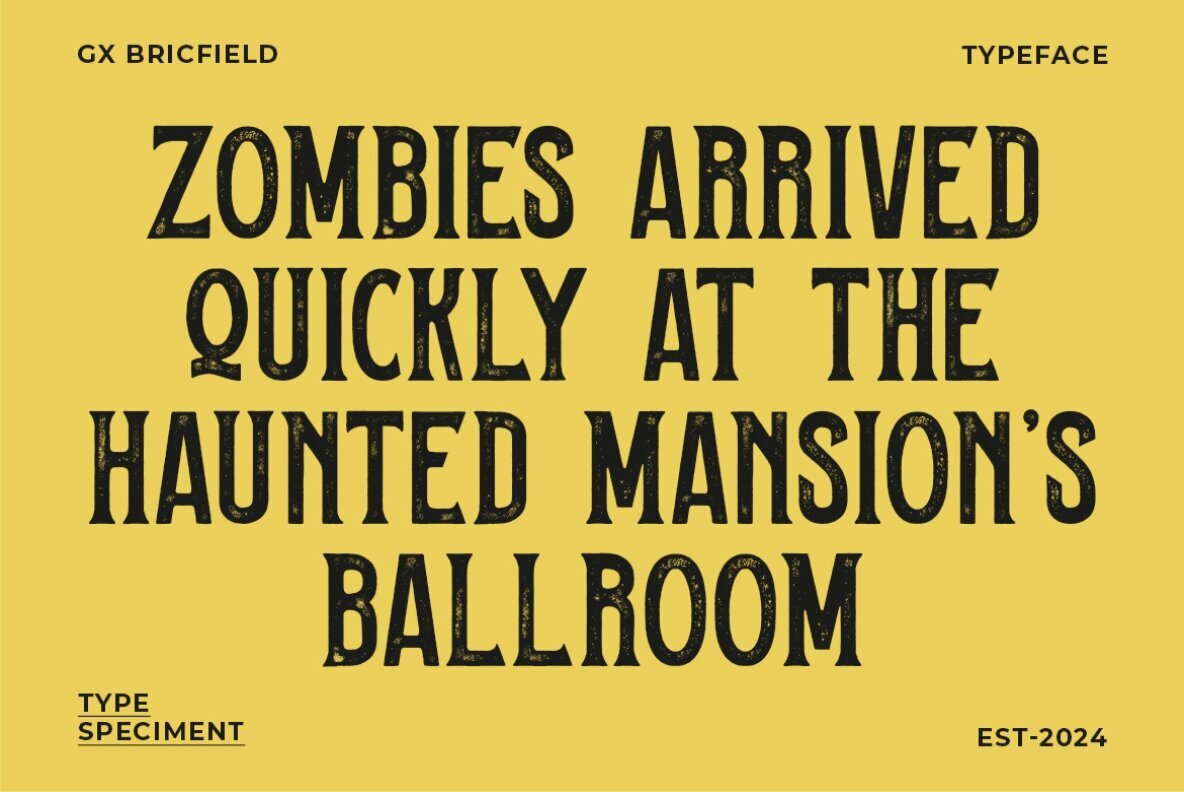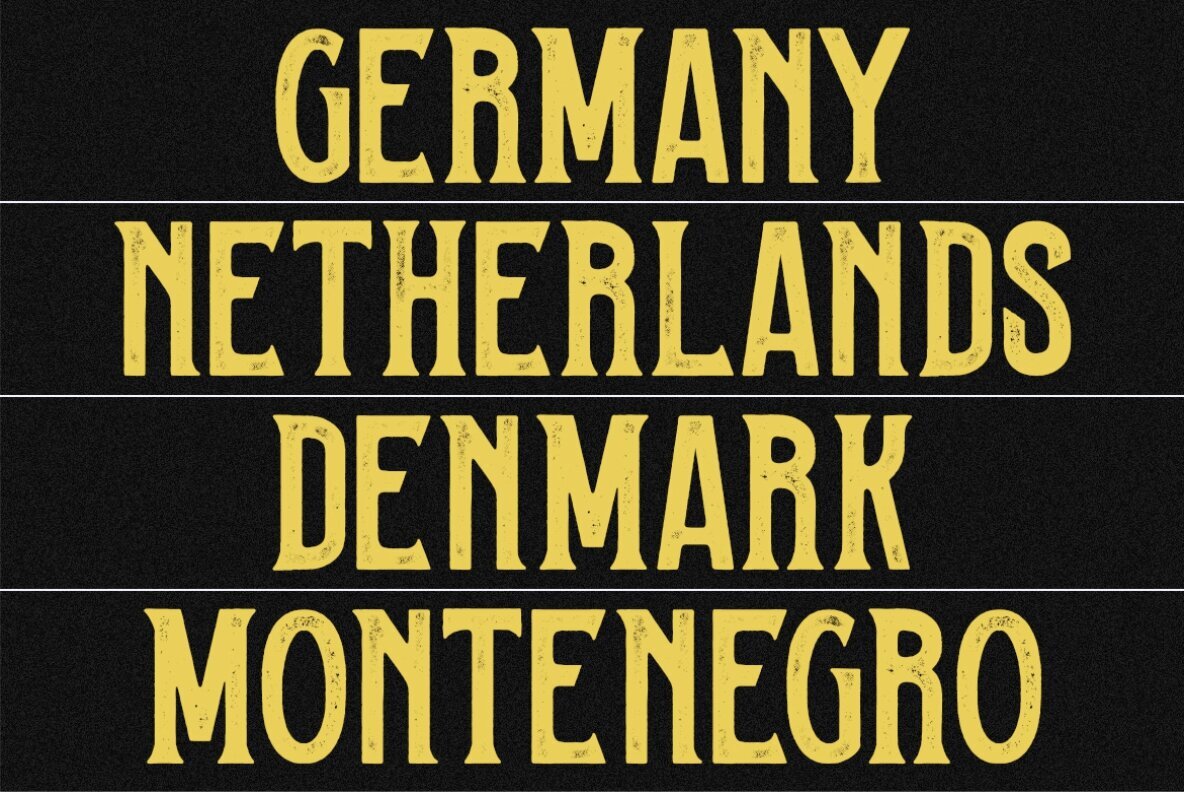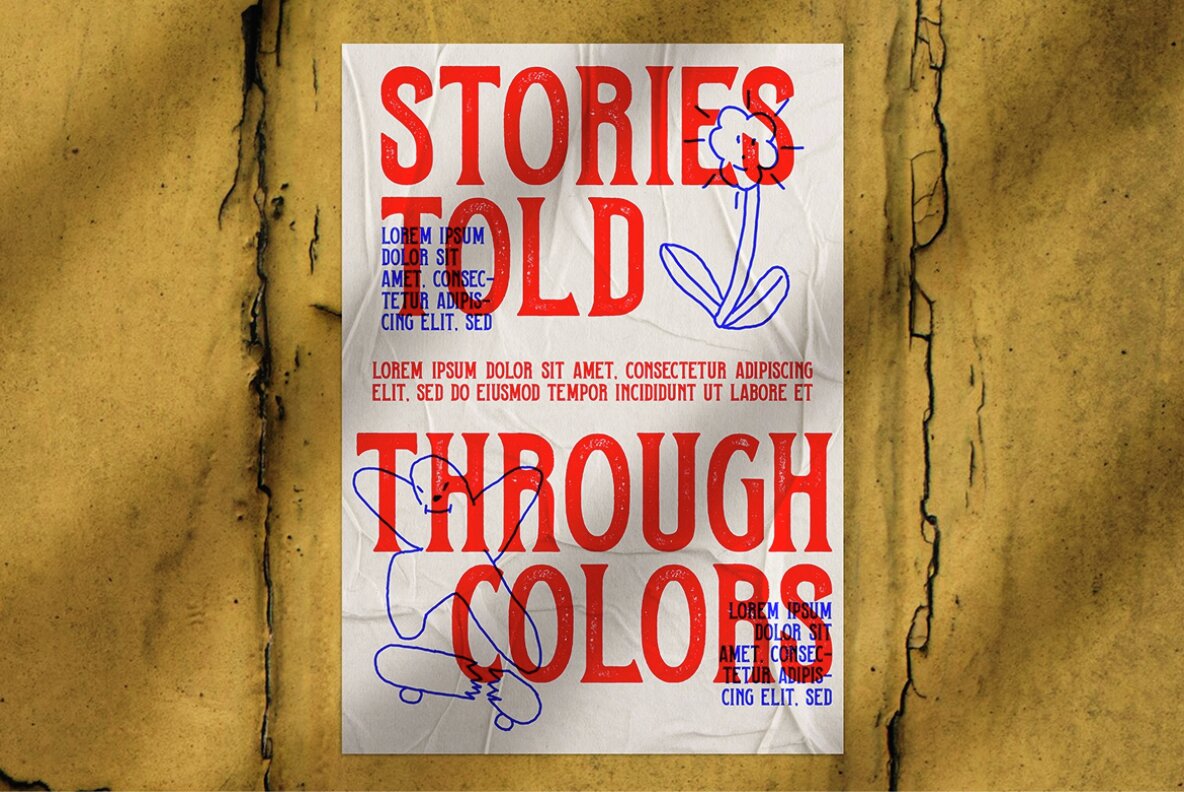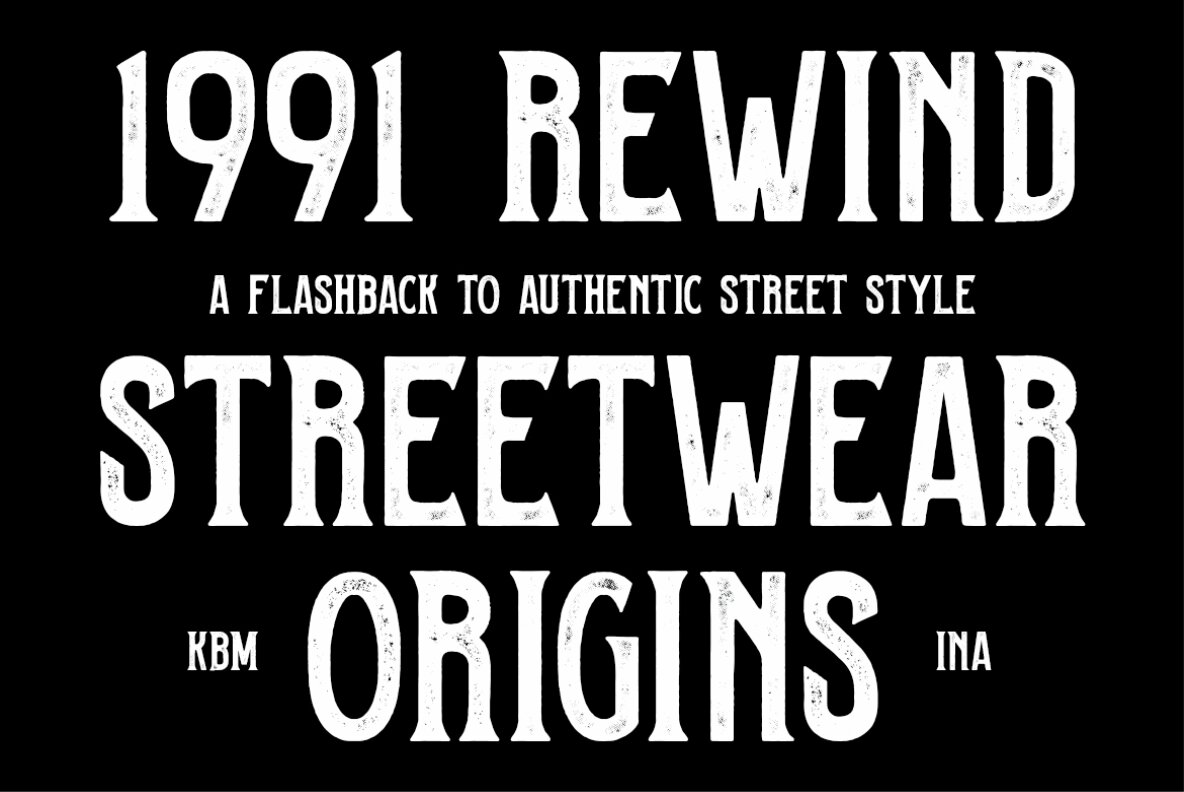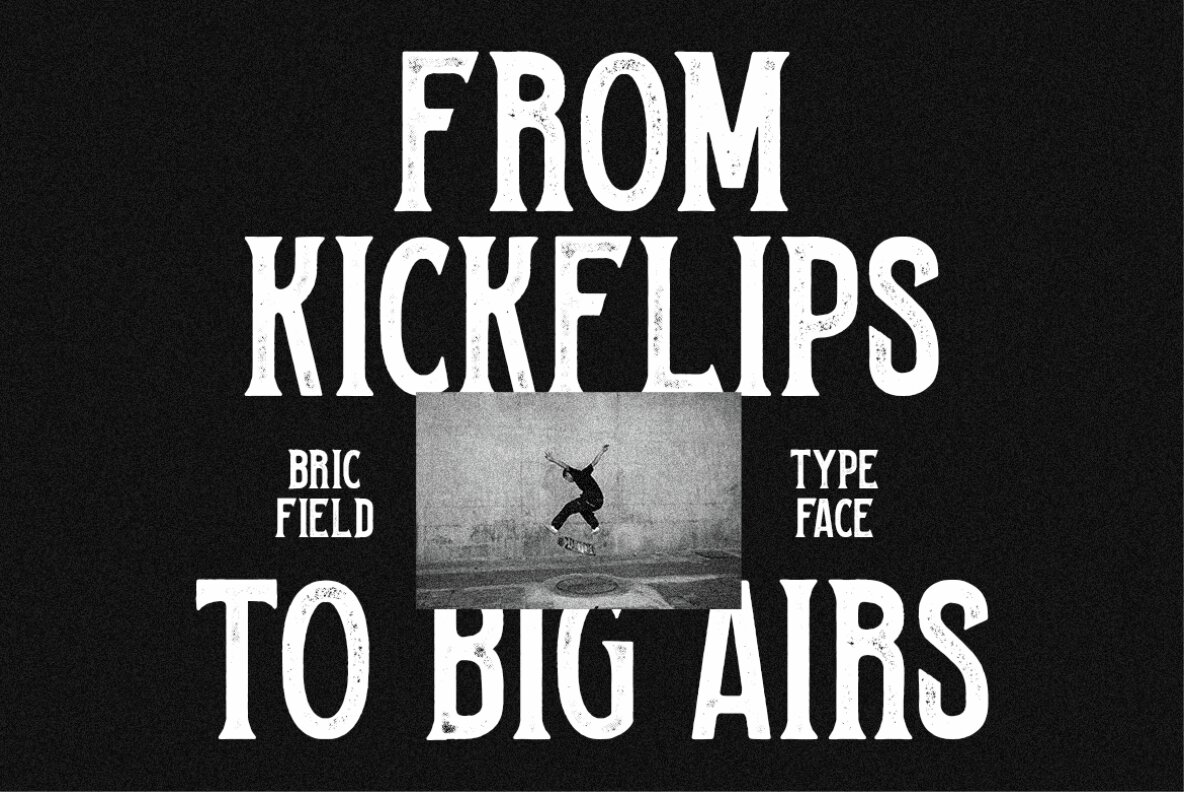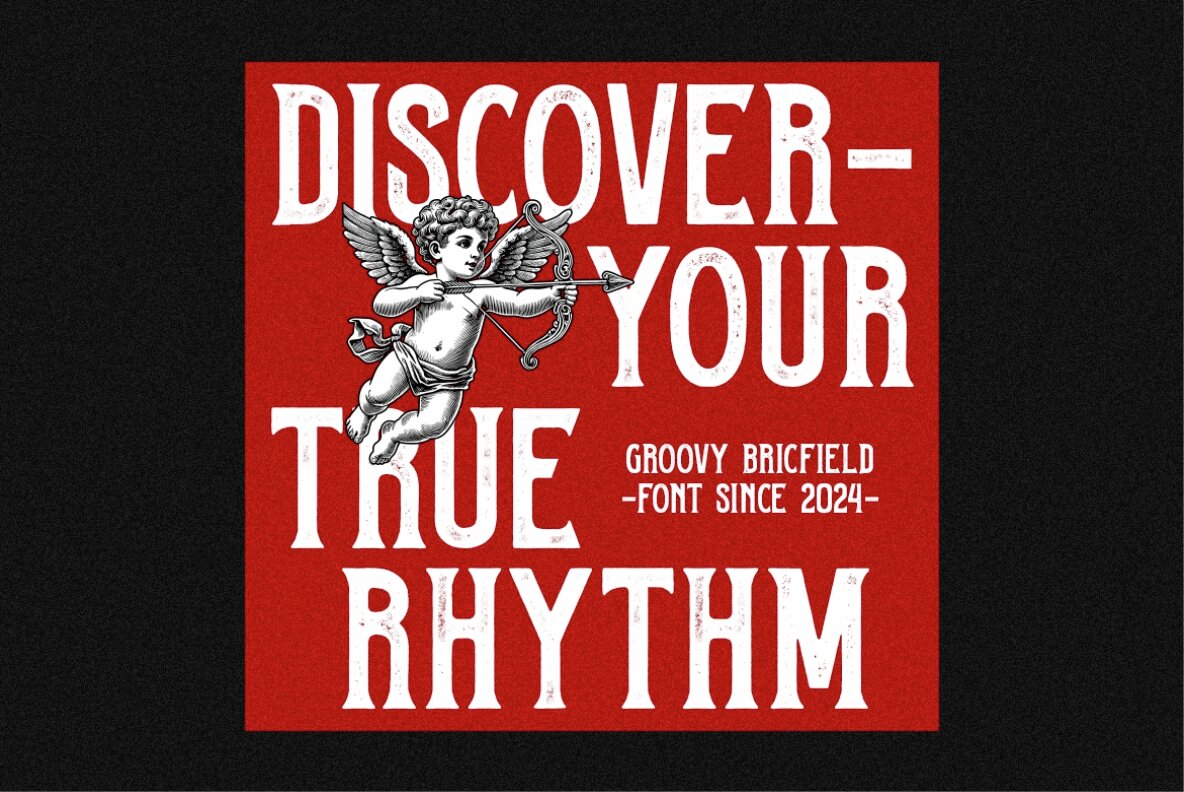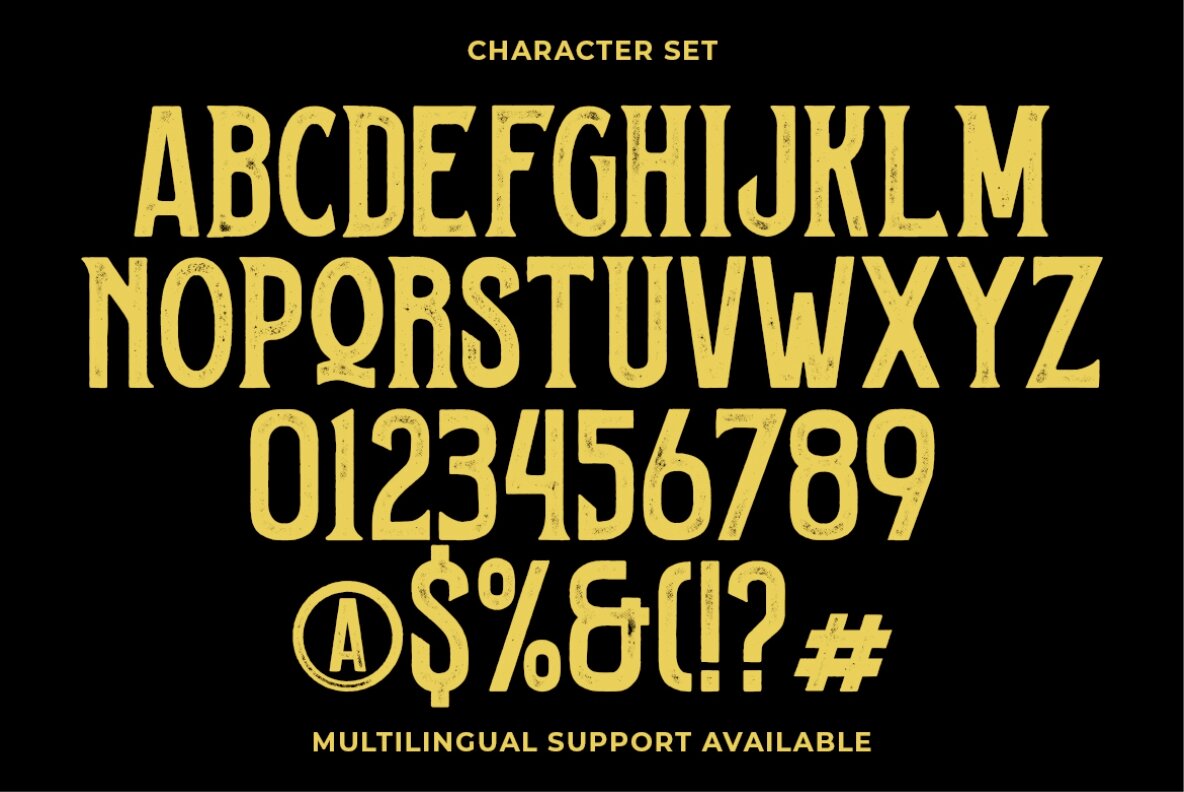
GF Bricfield Font
GF Bricfield
GF Bricfield is a distinct serif font characterized by its rough texture and retro, vintage aesthetic. The textured design imbues it with a weathered and aged appearance, enhancing its depth and adding a unique character that harks back to historical typographic styles. This font is perfect for evoking nostalgia with its classic and vintage design elements, making it an exceptional choice for projects requiring a historical or authentic feel.
Ideal for branding, packaging, editorial design, or signage, GF Bricfield offers a touch of retro elegance and a timeworn beauty that enhances any composition. Its unique charm and textured personality make it a versatile option for designs aiming to convey a sense of history and classic appeal.